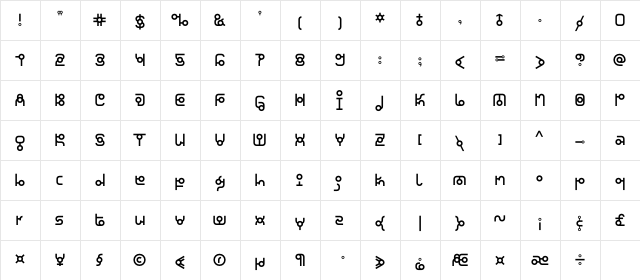
KD Thaiana Jones Regular
| Foundry | Kassymkulov Design |
| Designer | Kassymkulov Zhalgas |
Design Context for KD Thaiana Jones Typeface
KD Thaiana Jones takes a measured approach to typography — its balanced proportions and neutral character make it a reliable workhorse for both digital and print work.
Pro Tip: Use KD Thaiana Jones in both headline and body roles to test its range before committing to a single application.